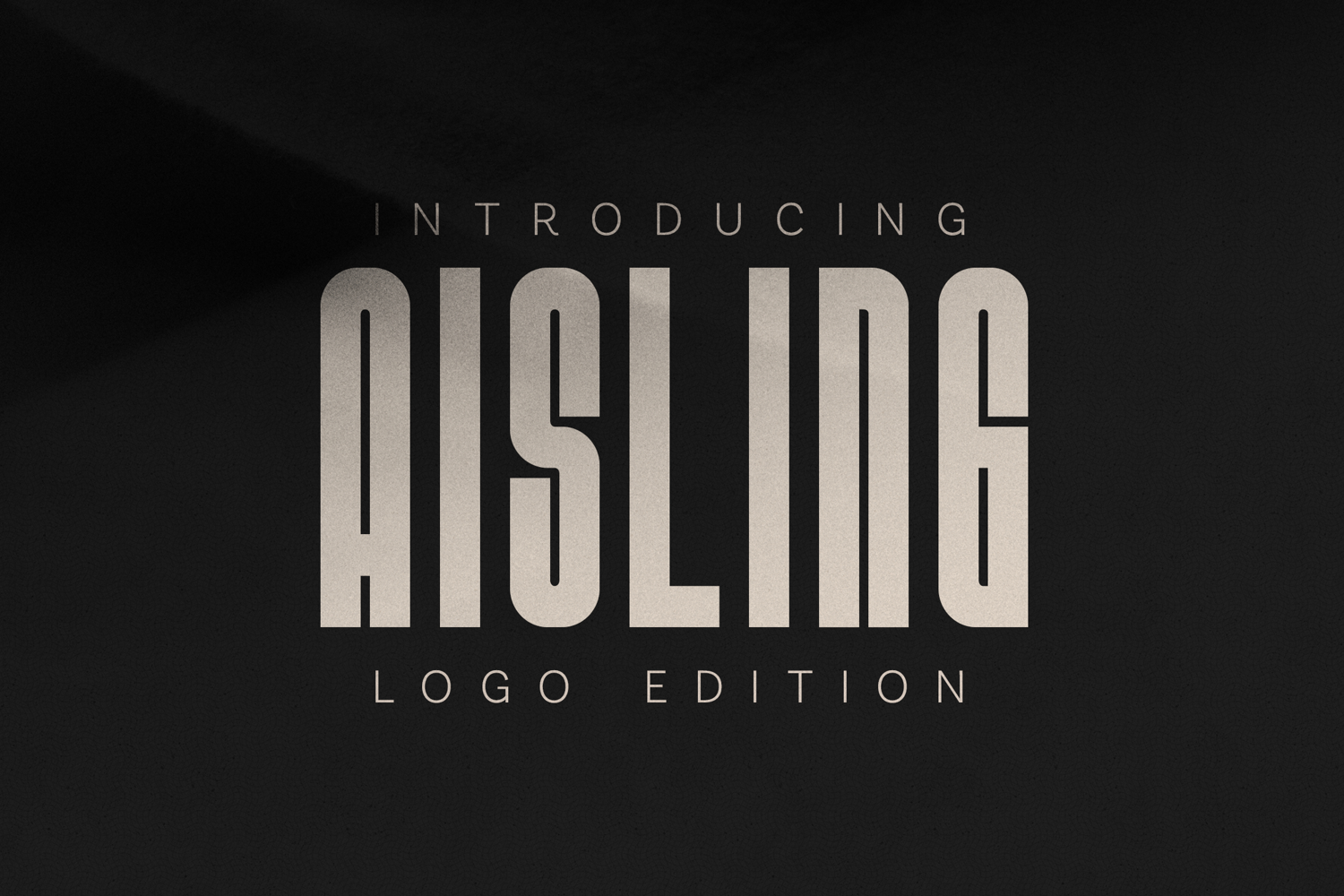
Aisling Logo Edition Condensed Display
Aisling Logo Edition is a bold, condensed display sans serif font designed for strong visual impact. With its tall proportions, clean geometry, and modern character, this typeface is perfect for logos, branding, headlines, posters, editorials, and contemporary design projects.
The font delivers a confident, minimalist aesthetic while remaining highly readable, making it ideal for fashion brands, magazines, lifestyle visuals, luxury labels, and modern typography layouts.
Perfect for logo design, brand identities, editorial layouts, posters, social media graphics, packaging, and modern digital or print projects.